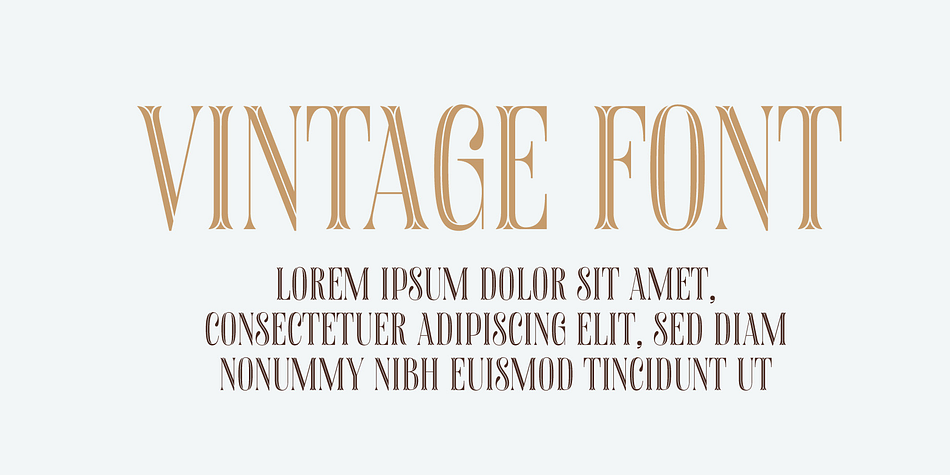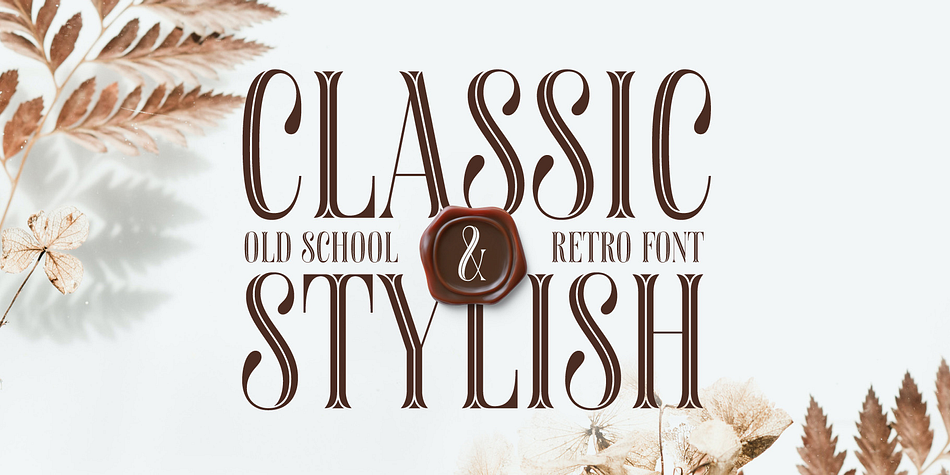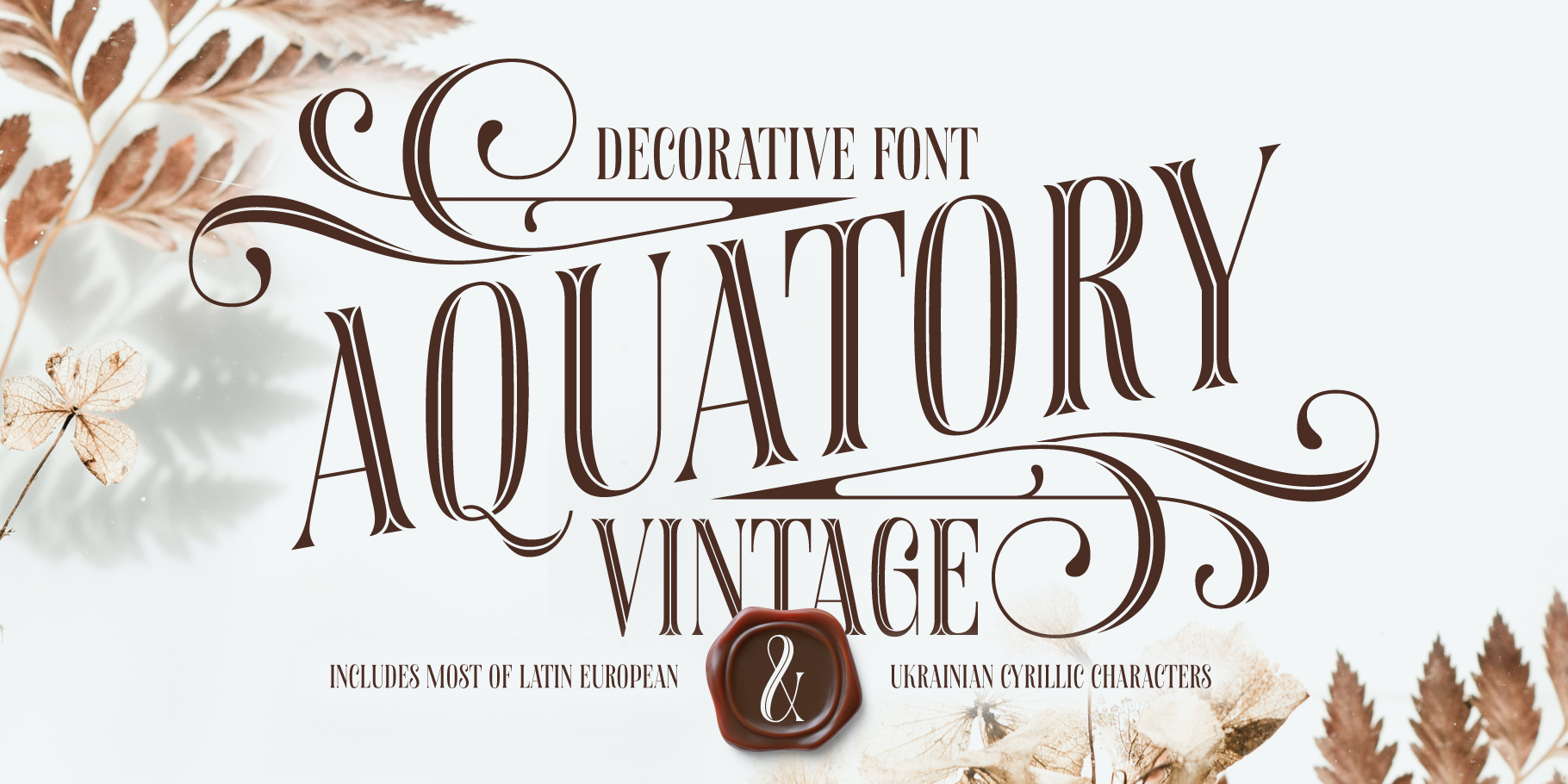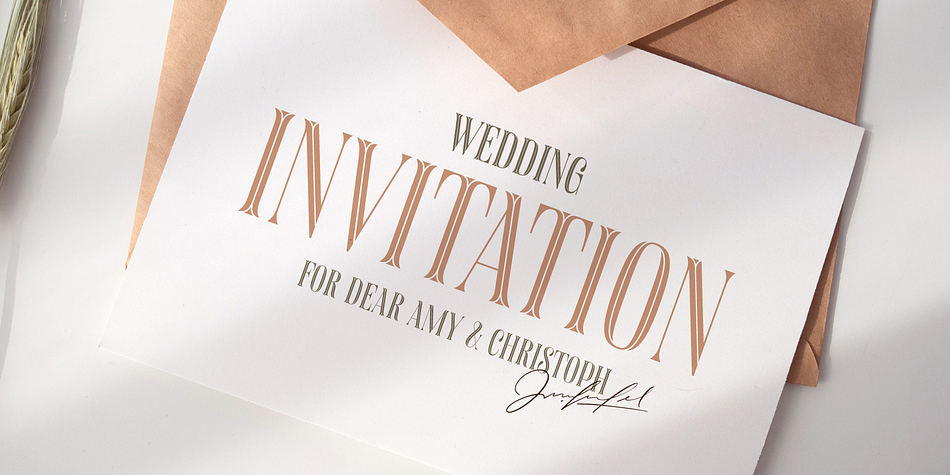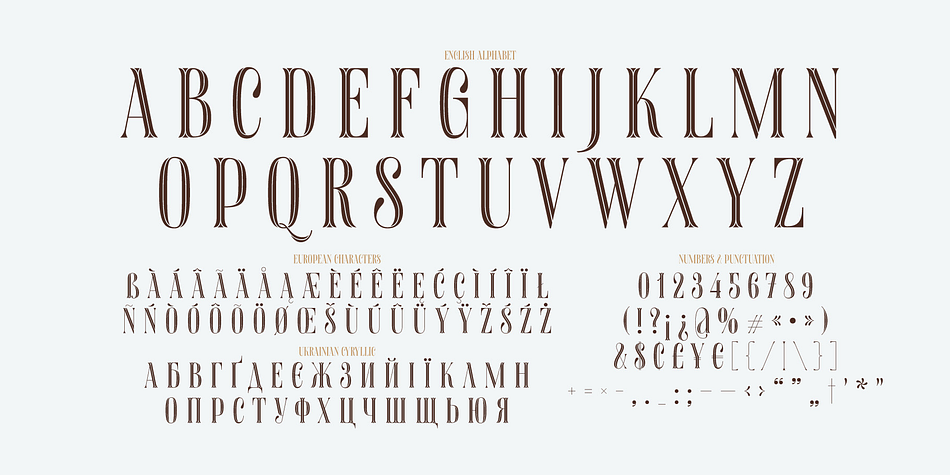
Designed by Gleb Guralnyk, Aquatory Vintage is a display serif font family published by Gleb Guralnyk.
Hi, presenting Aquatory Vintage font. It’s a thin and tall font with nice classic shape. Aquatory Vintage is an all caps typeface supplemented with decorative elements. Aquatory Vintage font supports most of the european languages and also has ukrainian cyrillic characters.